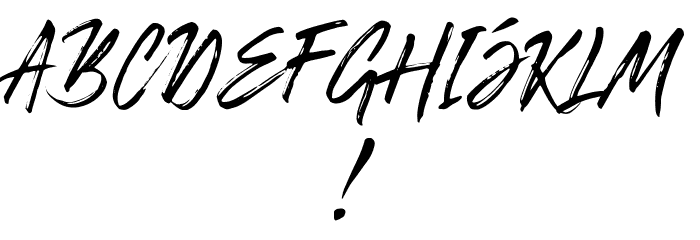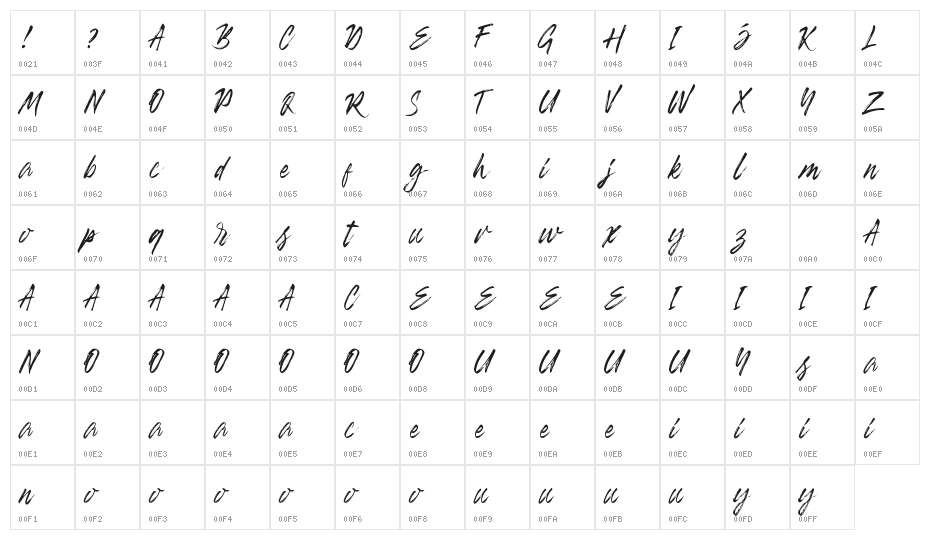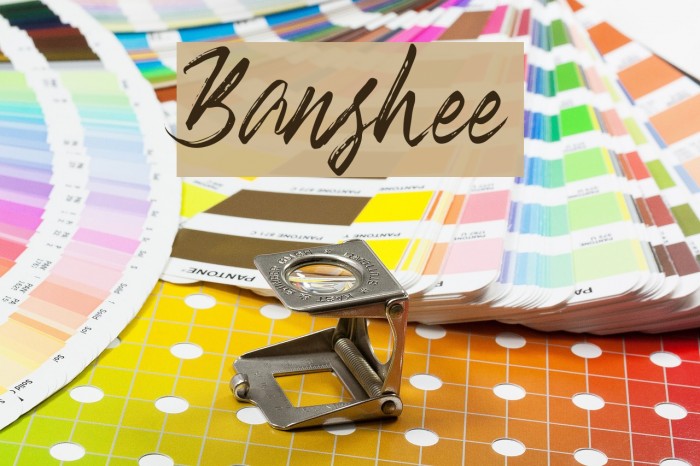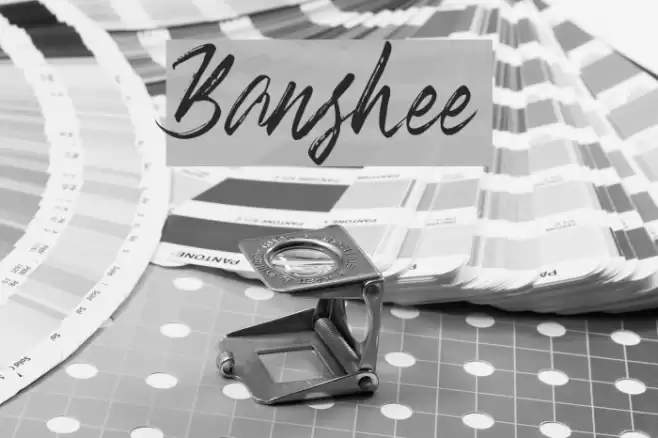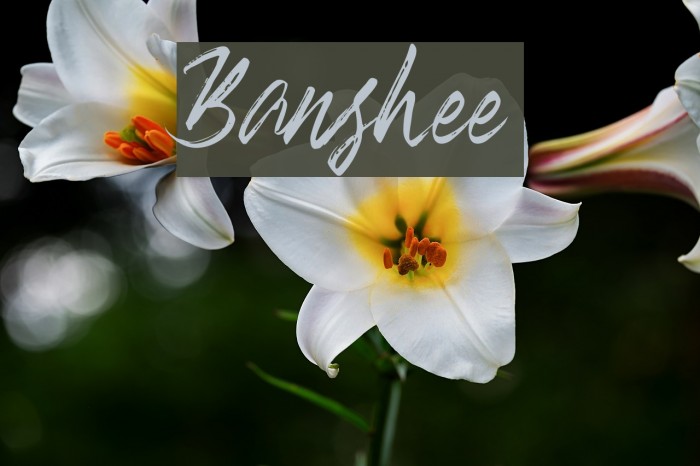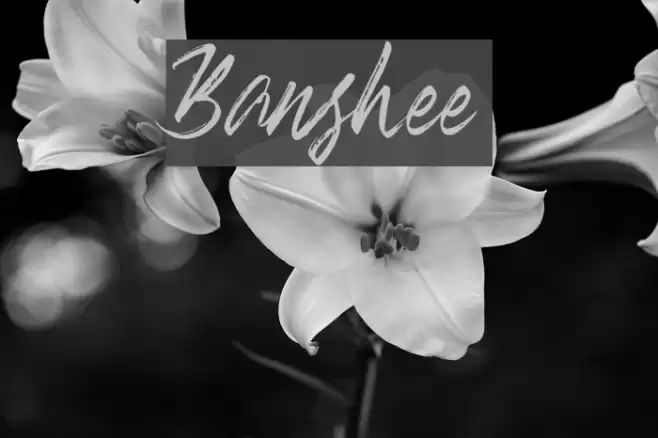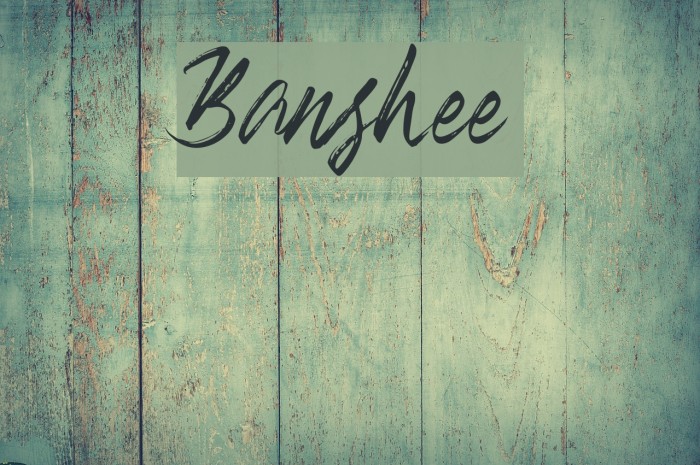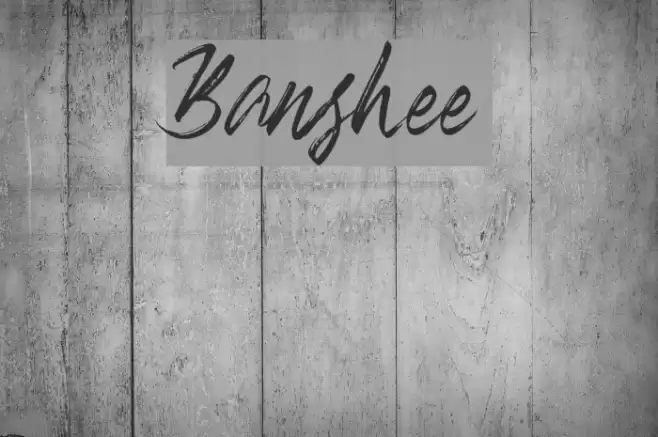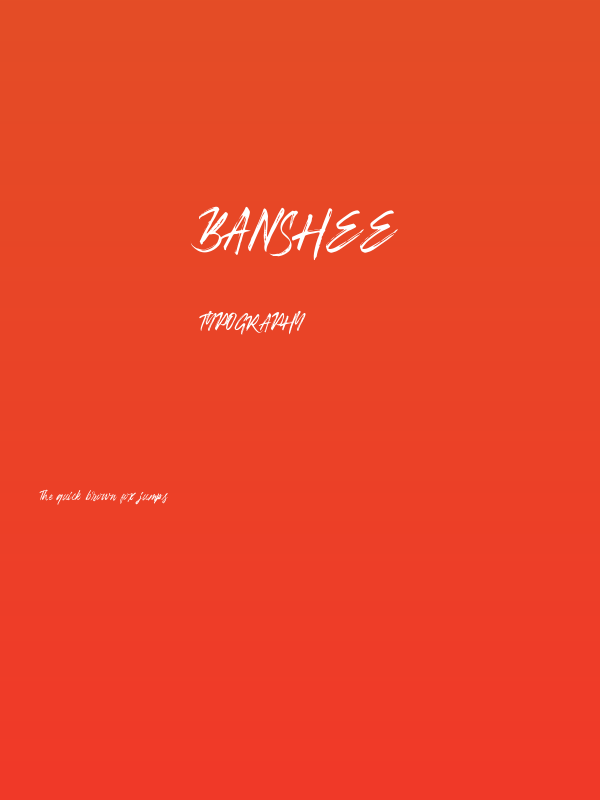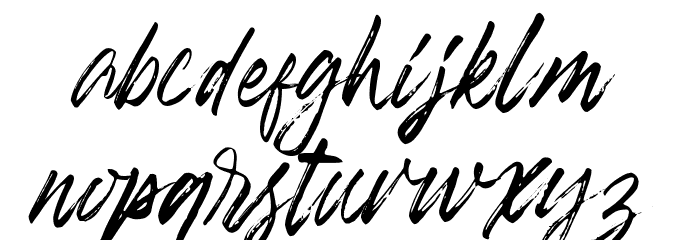
Banshee Font
Banshee Description
This font exudes a bold and expressive style, characterized by its brush-like strokes that convey a sense of movement and energy. The uppercase and lowercase letters are crafted with a dynamic flair, featuring irregular edges and varying stroke widths that add to its artistic appeal. The overall design is reminiscent of hand-painted lettering, making it ideal for projects that require a personal and creative touch. The font's unique character is further enhanced by its slightly slanted orientation, giving it a sense of urgency and spontaneity.
| Proposed Projects | Ideal for artistic projects, posters, branding, and any design that seeks to convey creativity and energy. |